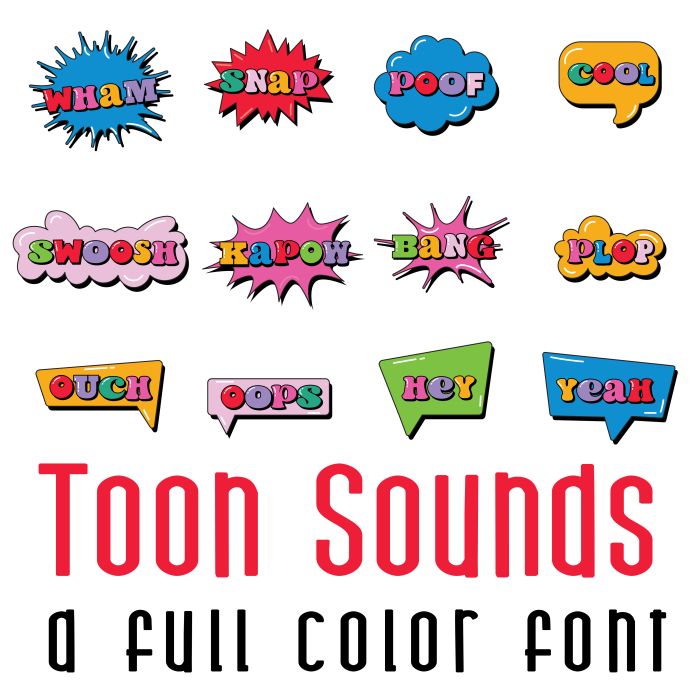
Toon Sounds Full Color Font is a playful and vibrant font design that features 26 cartoon-inspired talk bubbles and bright colors. Perfect for books, posters, digital designs, parties, classrooms, planner stickers, scrapbook pages and more!